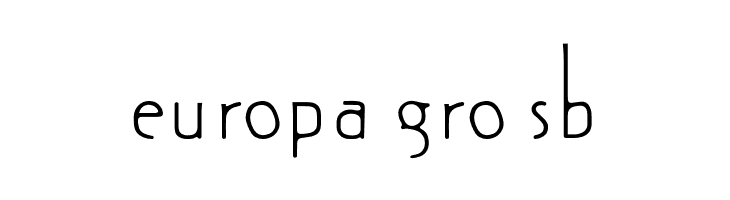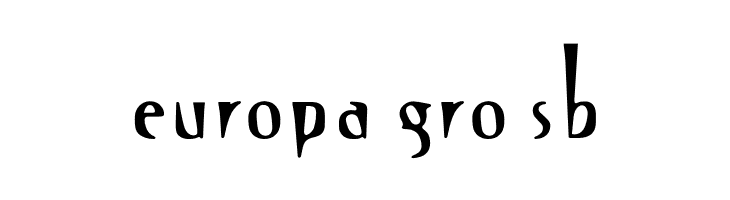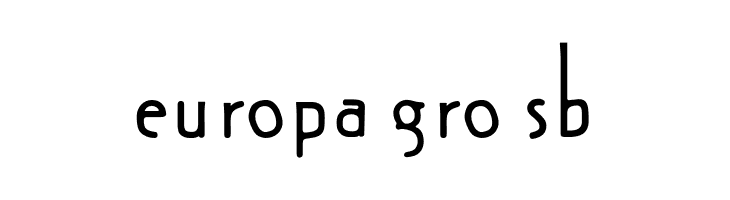
A bold, modern font with thick strokes and strong presence.
A whimsical and artistic font with elongated, playful characters.
A clean, modern font with geometric structure and consistent stroke width.
A modern, geometric font with clean lines and consistent stroke widths.
A whimsical and artistic font with irregular, hand-drawn letterforms.
A bold, modern sans-serif typeface with clean lines and uniform stroke width.
A clean, modern sans-serif font with consistent stroke width and excellent readability.
A distinctive serif font with sharp angles and flowing curves, blending traditional and modern styles.
A bold, rounded font perfect for impactful headlines and modern designs.
A whimsical, smoke-inspired font with flowing, artistic characters.